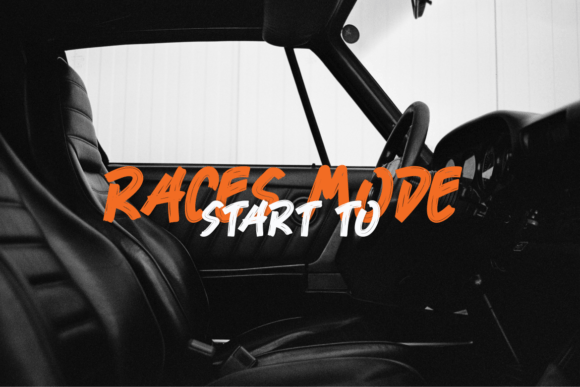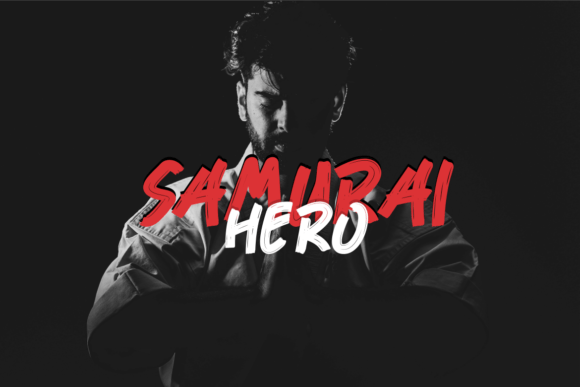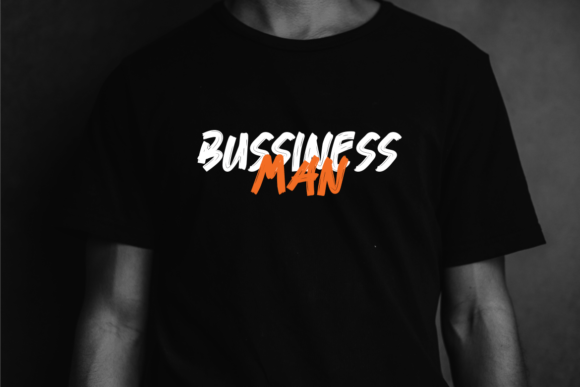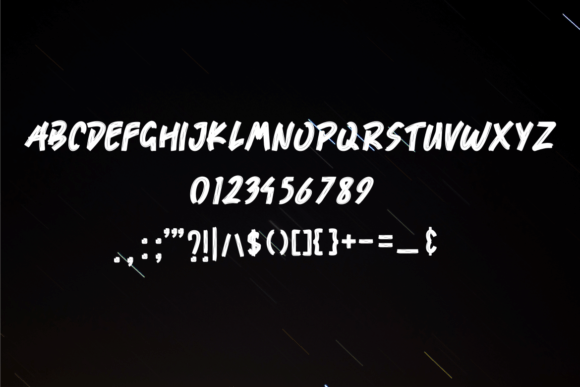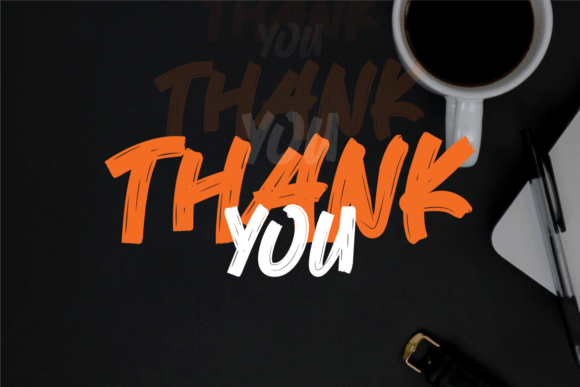
Introduction to Ghojekan Font
Have you ever found yourself staring at a blank design canvas, struggling to bring your creative vision to life? We’ve all been there – the blank page staring back, taunting us to create something truly special. But what if you had the perfect design resource to elevate your project and make it stand out from the crowd? Enter the Ghojekan Font, a bold and authentic display font that’s about to revolutionize your creative endeavors.
As a designer, you know how crucial it is to have a high-quality font that can elevate your project and make it truly memorable. With the Ghojekan Font, you’ll have access to a versatile design resource that’s perfect for branding projects, from logos to t-shirt printing, and even esports – the possibilities are endless. And the best part? This stunning font is available for free download, making it a valuable addition to your design arsenal.
Key Features of Ghojekan Font
- High-quality design for creative projects, ideal for use in various digital applications.
- Unique, handcrafted design that adds a personal touch to any creative project.
Honest Review: Ghojekan Font
I recently stumbled upon the Ghojekan Font, and I must say it’s a unique addition to my design resource library. As a designer, I appreciate high-quality fonts that can elevate a creative project.
What works well with the Ghojekan Font is its versatility. It can be used for various design projects, from logos to digital art. The font’s modern design and sleek lines make it a great choice for designers who want to add a touch of sophistication to their work.
However, I do have a few reservations about the Ghojekan Font. One of the limitations is that it may not be suitable for all types of projects. For example, it may not be the best choice for projects that require a more traditional or classic look.
Overall, I’m impressed with the Ghojekan Font. It’s a great addition to any design library, and I appreciate its high-quality design and versatility. While it may have some limitations, I believe it’s a valuable resource for designers who want to add a modern touch to their work.
Common Use Cases for Ghojekan Font
The Ghojekan Font is ideal for creative projects, such as logo designs, business cards, or social media graphics. You can also use the font in educational materials, presentations, or documents, where a high-quality and unique font is desired.